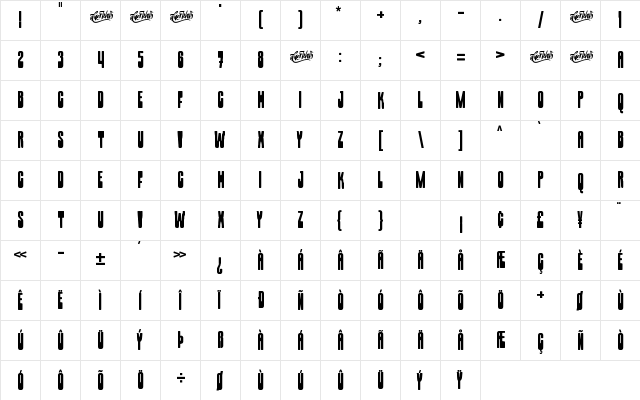
Retroholz Regular
Design Context for Retroholz Typeface
Retroholz wears its vintage influences proudly, with letterforms that recall mid-century signage, classic packaging, and nostalgia-driven design.
Font Pairing: Combine Retroholz with a simple slab or neutral sans — period-accurate companions reinforce the vintage feel without competing for attention.
Pro Tip: Use Retroholz for headlines and pull quotes rather than body copy — its personality is best appreciated in short, focused bursts.